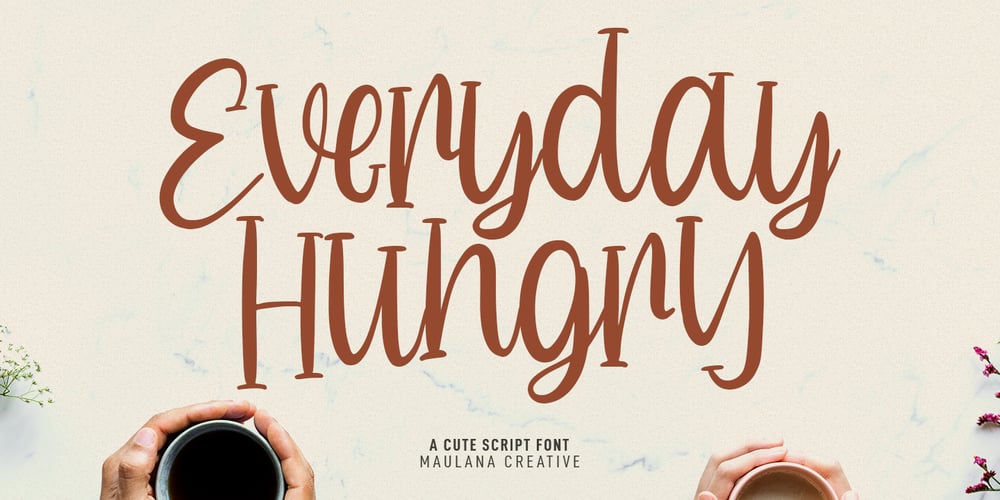
Everyday Hungry Font Family was designed by Gilang Maulana and published by Maulana Creative. Everyday Hungry contains 1 styles and family package options. Everyday Hungry is a fancy handwritten script font. With medium contrast stroke, fun character with a bit of ligatures and alternates. To give you an extra creative work. Everyday Hungry font support multilingual more than 100+ language. This font is good for logo design, Social media, Movie Titles, Books Titles, a short text even a long text letter and good for your secondary text font with sans or serif. Make a stunning work with Everyday Hungry font. Cheers, Maulana Creative